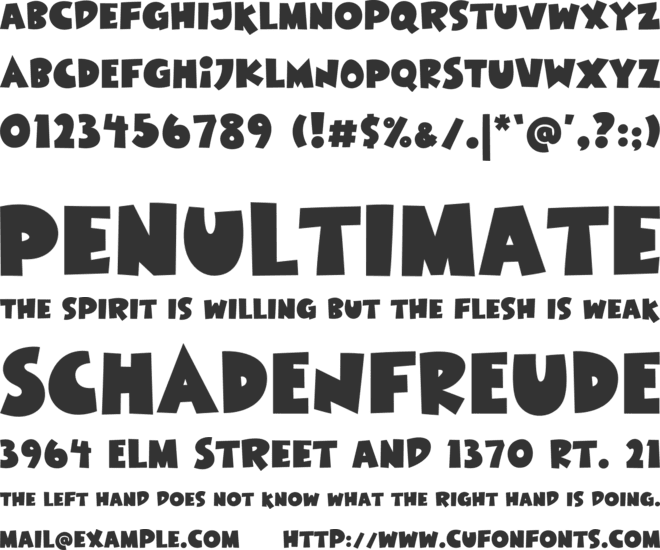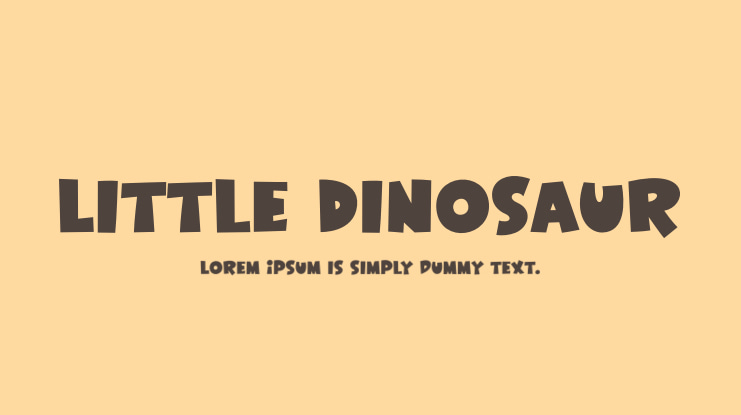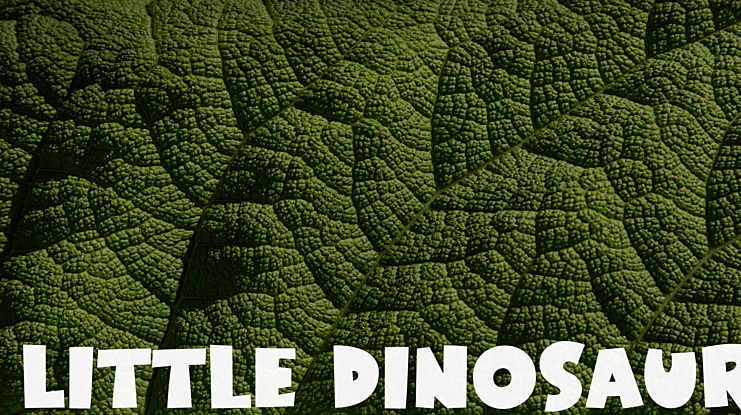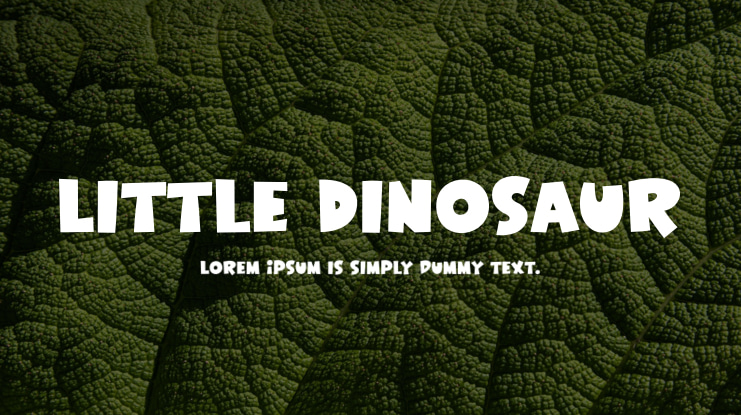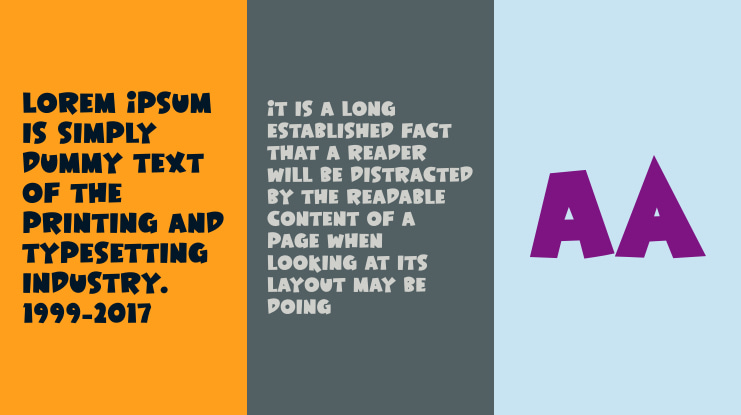
Little Dinosaur Font
Little Dinosaur is a cute and cartoon-like decorative font. It embodies playfulness and authenticity and is the perfect choice for any children activity or school project.